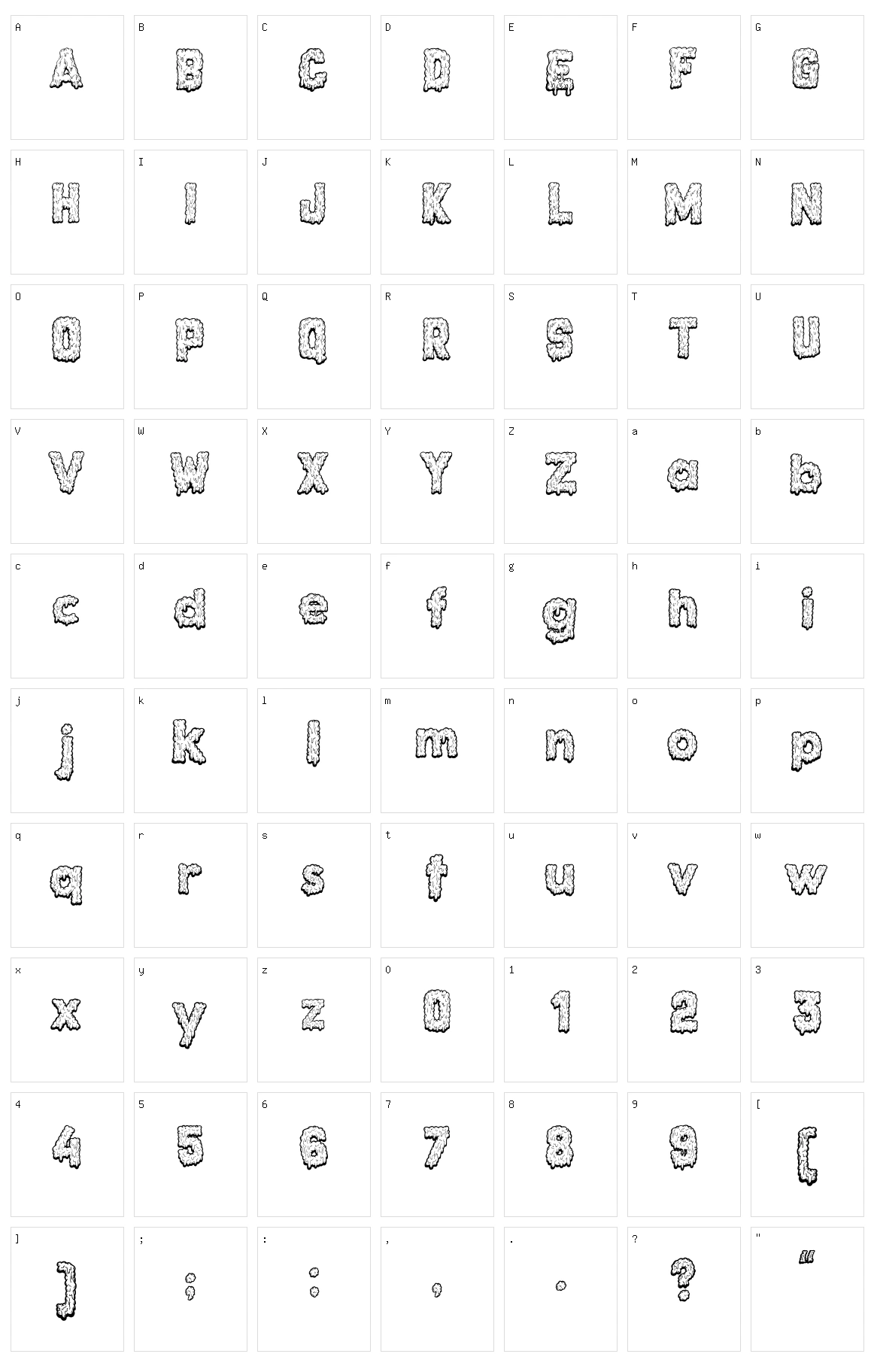
The free font Monstrocity is carefully designed by Esmeralda Mejia, showcasing a thoughtful balance of creativity and usability and falls under the Horror font style. When you download the ZIP file, it contains only 213.52 KB of font files, making it lightweight and quick to download. Please review the license details below to understand permitted usage and distribution rights. If license information is not available, we recommend using this font for personal projects only or contacting the author directly for commercial usage permissions.